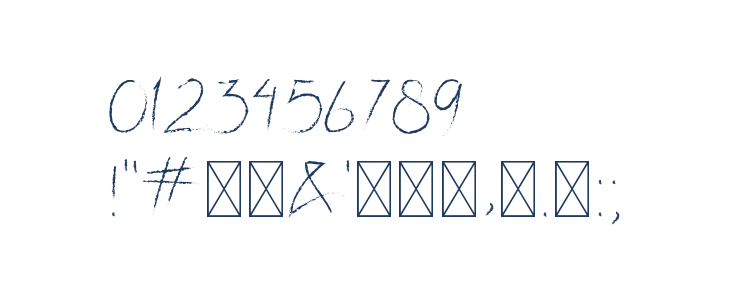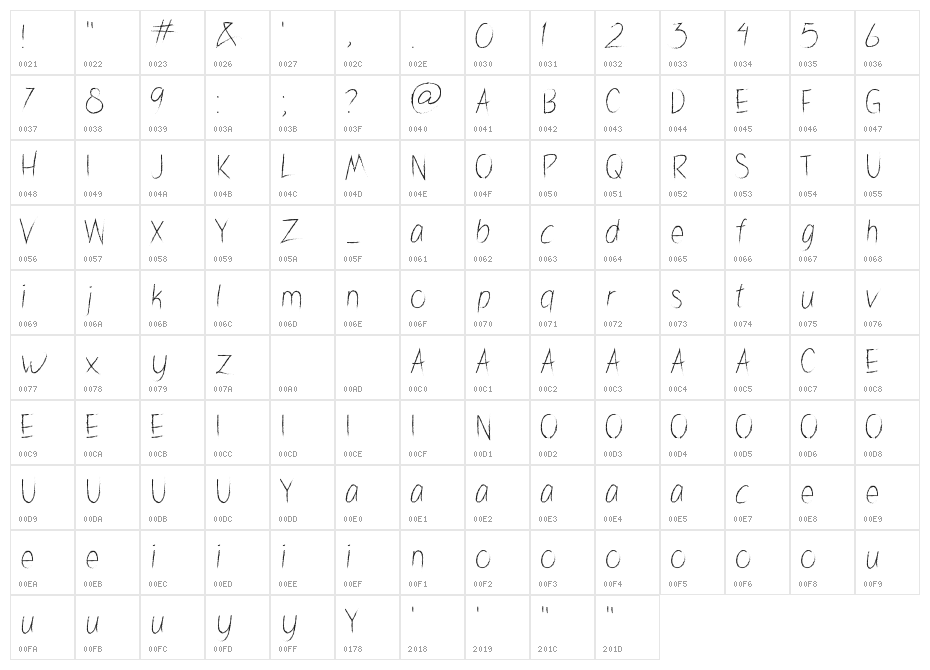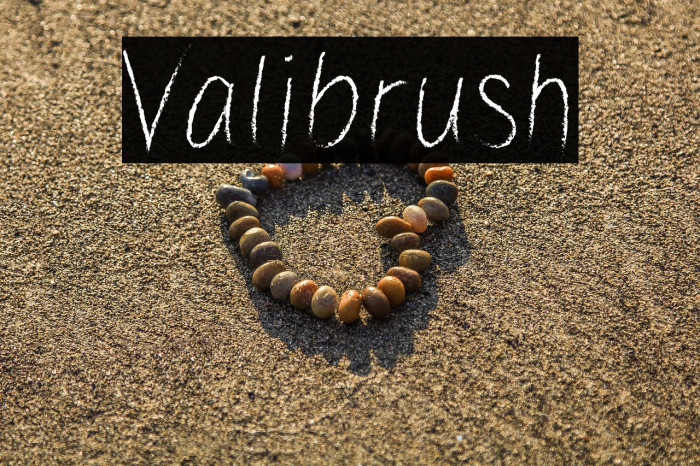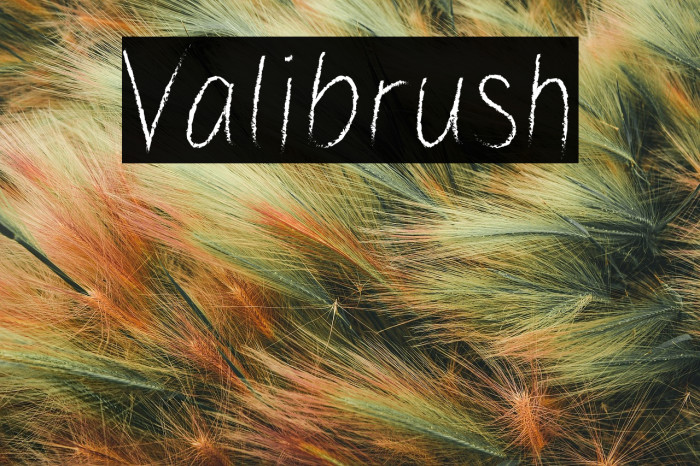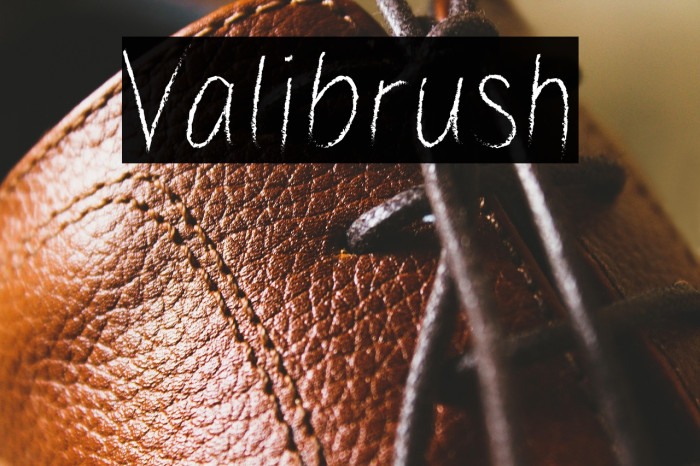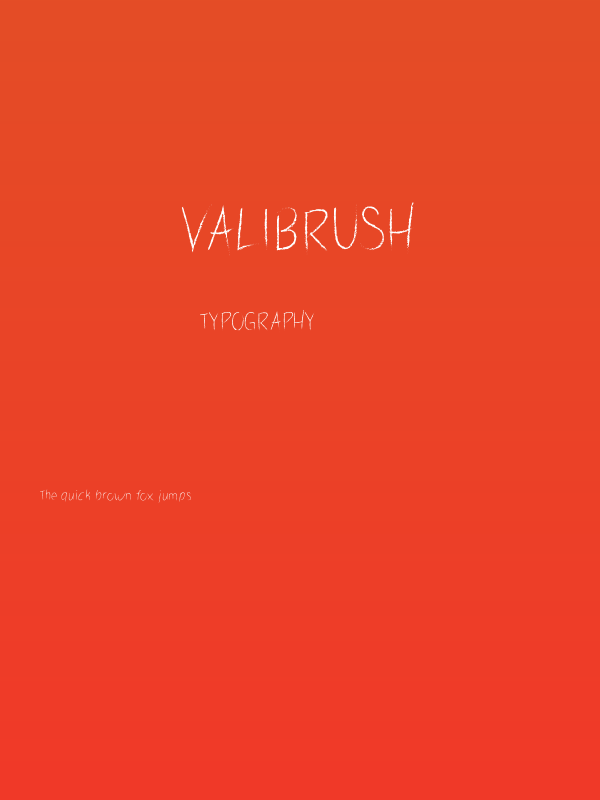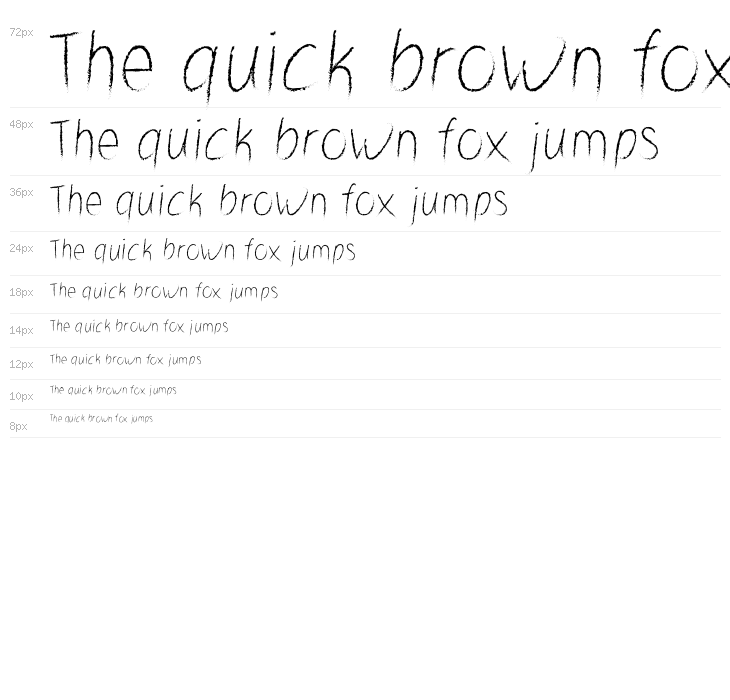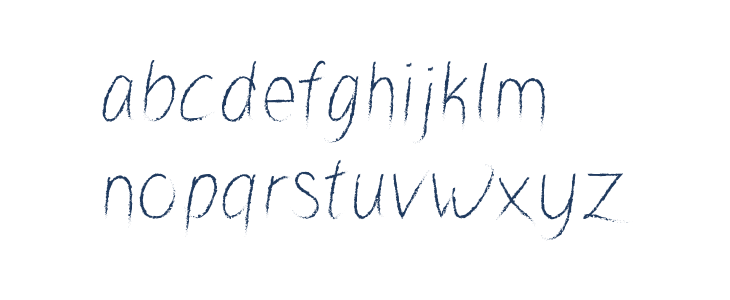
Valibrush Font
Valibrush Description
This font features a dynamic and expressive brush style, characterized by its rough, textured strokes that mimic the appearance of hand-drawn letters. The uppercase and lowercase letters maintain a consistent flow, with slightly irregular edges that add to its organic feel. The numerals and special characters follow the same aesthetic, ensuring a cohesive look across all glyphs. This font's unique style is perfect for projects that require a personal touch or a creative flair.
| Use Case | Logos, Headlines, Artistic projects |
| Proposed Projects | Ideal for artistic projects, branding, posters, and invitations where a personal, creative touch is desired. |